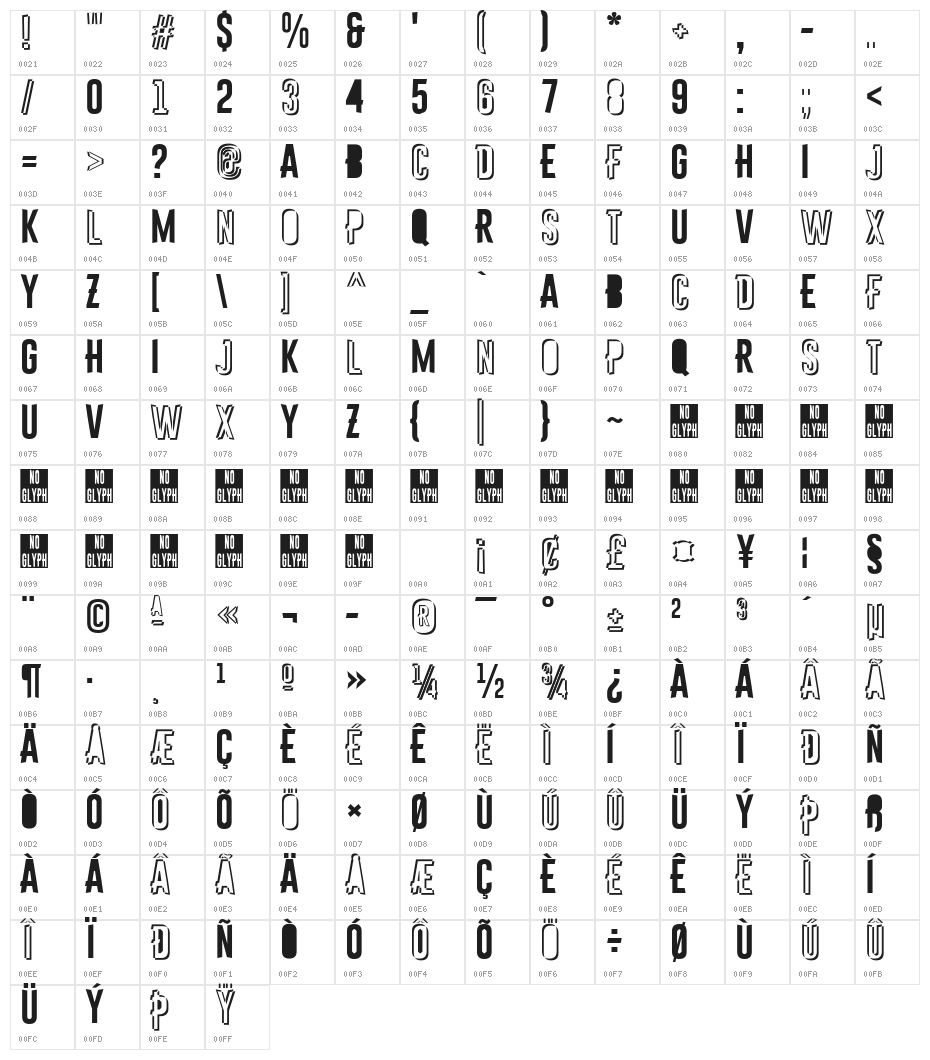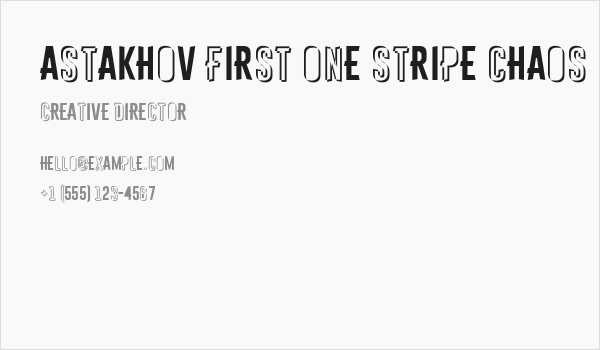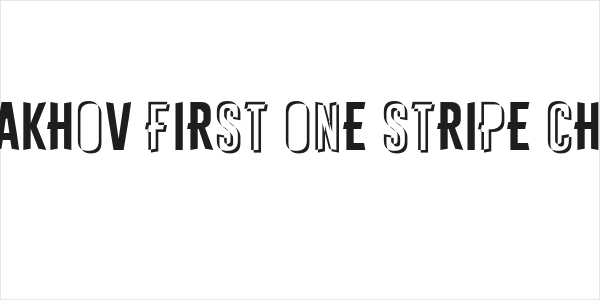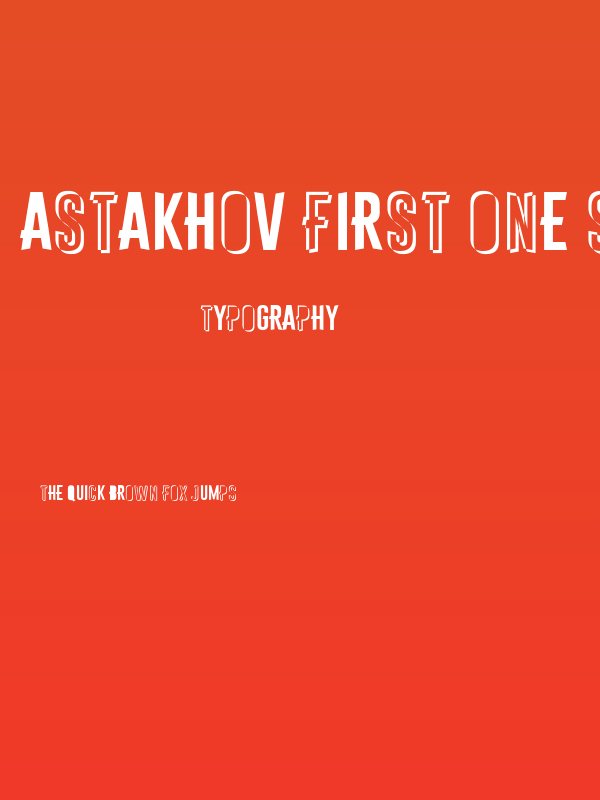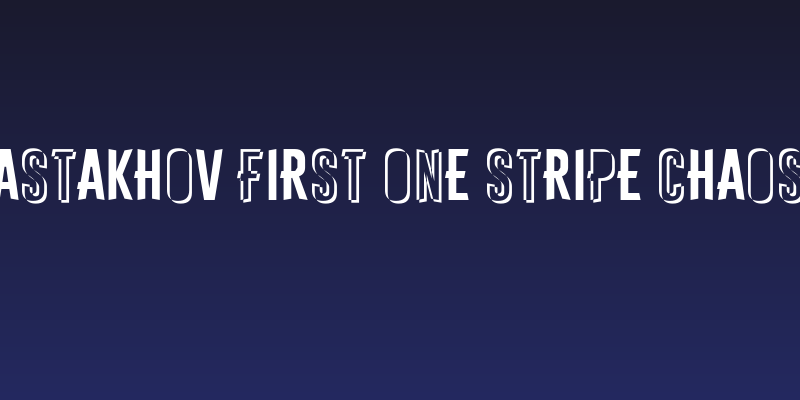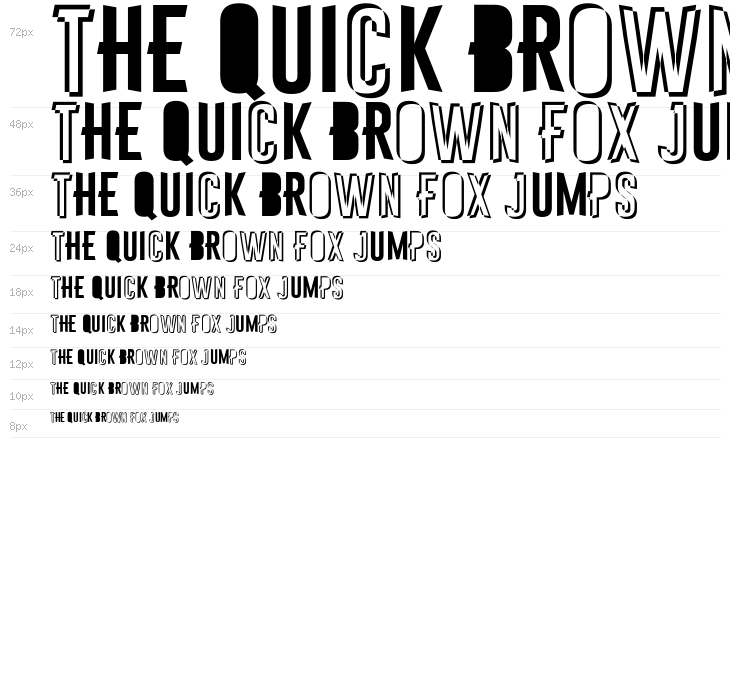
Astakhov First One Stripe Chaos Font
Astakhov First One Stripe Chaos Description
This font features a bold and striking design with a unique blend of solid and outlined characters. The uppercase letters are particularly eye-catching, with some characters having a shadow or stripe effect that adds depth and dimension. The numbers and special characters maintain this bold aesthetic, ensuring consistency throughout. The font's style is both modern and playful, making it suitable for projects that require a strong visual impact. Its distinct appearance makes it ideal for creative and artistic designs.
| Proposed Projects | Ideal for posters, headlines, branding, and any project needing a bold, artistic touch. |